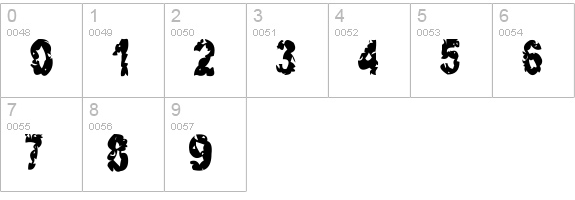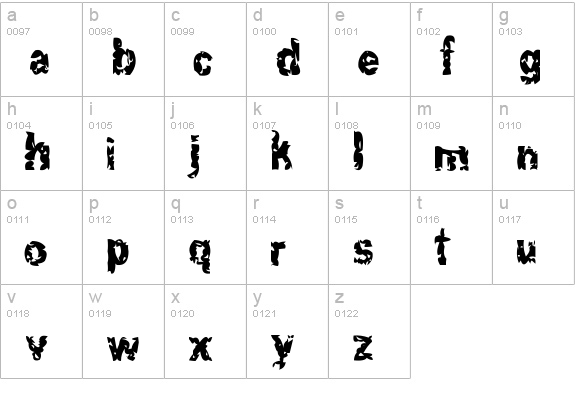
Hacknslash Font Details
Introducing Hacknslash font, a versatile and edgy typeface that embodies the spirit of rebellion and adventure. With its sharp and angular letterforms, this font brings a distinctive and bold look to any design project. Hacknslash font is the perfect choice for those seeking to add a touch of rebelliousness and excitement to their creations. Whether you're designing a poster, logo, or branding materials, this font will effortlessly command attention and make a lasting impression. What sets Hacknslash font apart is not just its unique design, but also the fact that it is free. Yes, you read that right! This incredible font is freely available to download at FontsMarket.com. Now, you have the opportunity to incorporate this eye-catching typeface into your designs without breaking the bank. Whether you're a professional designer or a creative enthusiast, Hacknslash font opens up a world of possibilities. Its versatility allows it to be used in a wide range of projects, from websites and advertisements to packaging and apparel. Let your imagination run wild and bring your ideas to life with the help of this remarkable font. With Hacknslash font, you can confidently express your individuality and make a statement. Its bold and daring aesthetic is perfect for those who want to stand out from the crowd and leave a lasting impression. So why wait? Embrace the rebellious spirit and download Hacknslash font for free at FontsMarket.com today. Unleash your creativity and let this font become a powerful tool in your design arsenal.